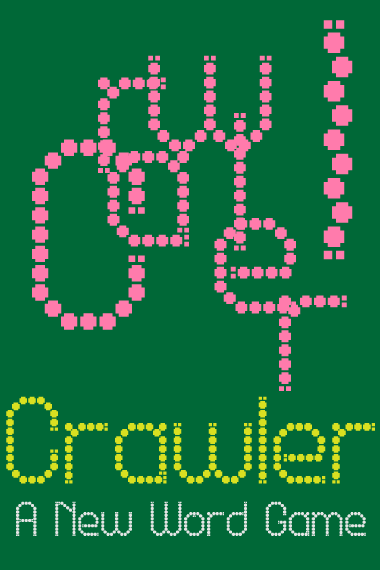
• Crawler is a word game. Each level contains anagrams that must be unscrambled within a given amount of time to move to the next level. Player gets points for as many words spelled correctly, but can only move to next level by correctly solving anagram. As time diminishes, the letters start wiggling and eventually break apart making it more difficult to use the remaining pieces to solve correctly. Points can be used to fuse letters back together, but doesn't last long. Also the crawling pieces can start eating away at already formed words, reducing your score. Or something like that :)
Interesting concept, I would love to see these glyphs in action. They look like they could start moving any time.